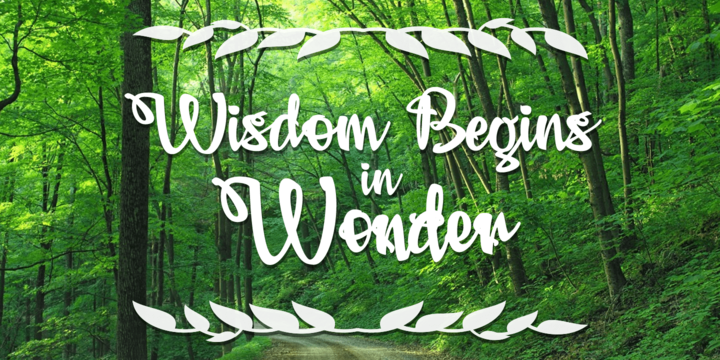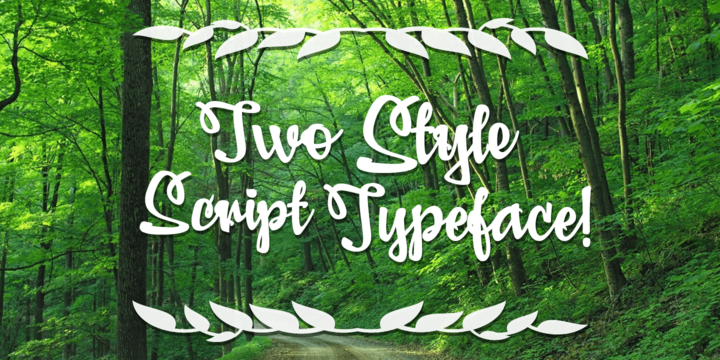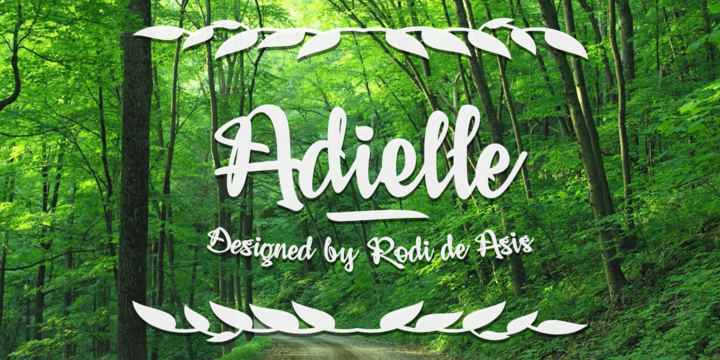
Adielle is a handwritten script typeface, designed and created in 2018 by Rodi de Asis and Måns Grebäck.
It has a wild style with graffiti inspired movements. The typeface also comes with the more decorative alternate style Adielle Cerine. The font contains a wide range of characters and supports a majority of Latin-based languages.